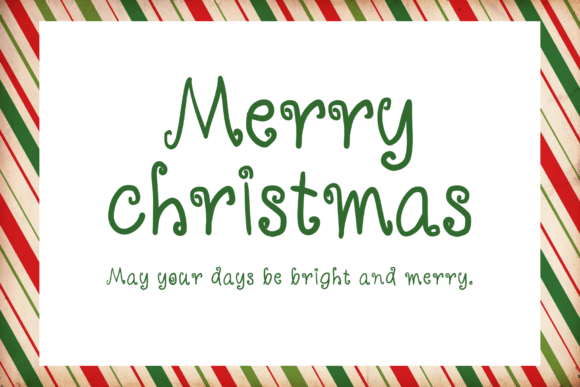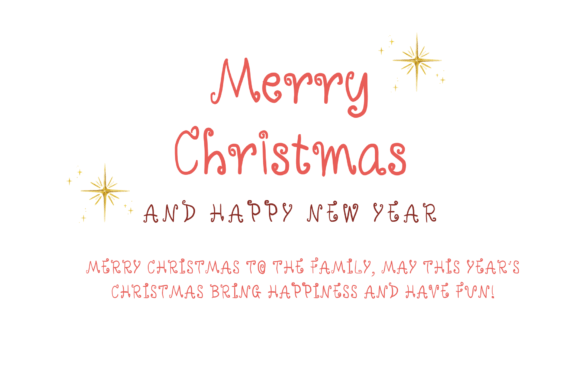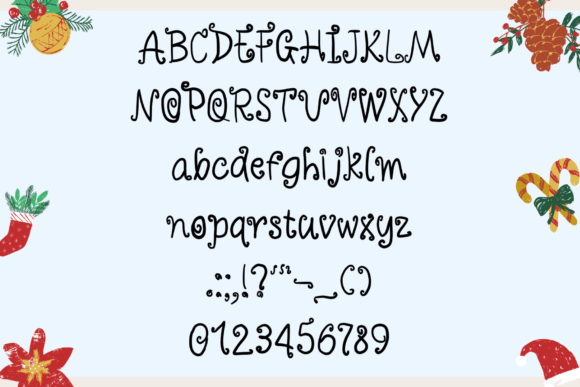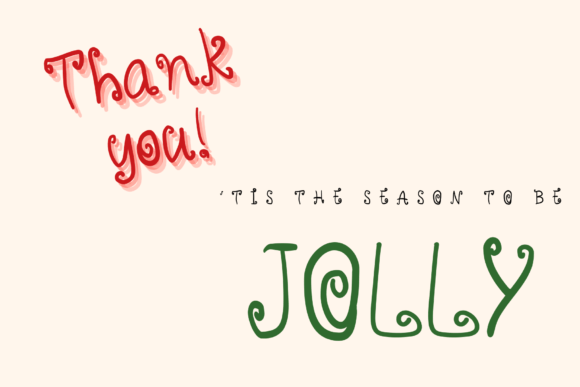
Christmas Kids Font: A Sweet and Friendly Handwritten Font for Your Creative Projects
Are you looking for a font that can add a touch of warmth and friendliness to your creative projects? Look no further than the Christmas Kids font! This sweet and friendly handwritten font is perfect for designers and crafters who want to create unique and engaging content for the holiday season.
What is Christmas Kids Font?
Christmas Kids is a handwritten font that is designed to evoke the spirit of the holiday season. With its playful and whimsical feel, this font is perfect for creating festive and fun designs that are sure to delight both kids and adults alike. Whether you’re working on a Christmas card, a holiday-themed craft project, or a festive website design, Christmas Kids font is the perfect choice.
Features of Christmas Kids Font
- Sweet and Friendly Design: Christmas Kids font has a sweet and friendly design that is perfect for creating festive and fun content.
- Handwritten Style: This font has a handwritten style that gives it a personal and unique touch.
- Playful and Whimsical: Christmas Kids font has a playful and whimsical feel that is sure to delight both kids and adults alike.
- Easy to Read: Despite its playful design, Christmas Kids font is easy to read, making it perfect for use in a variety of creative projects.
Uses for Christmas Kids Font
- Christmas Cards: Use Christmas Kids font to create festive and fun Christmas cards that are sure to delight your friends and family.
- Holiday Crafts: Add a personal touch to your holiday crafts, such as ornaments, gift tags, and decorations, with Christmas Kids font.
- Website Design: Use Christmas Kids font to create a festive and fun website design that’s perfect for the holiday season.
- Social Media Graphics: Create engaging social media graphics, such as holiday-themed Facebook posts and Instagram stories, with Christmas Kids font.
Why Choose Christmas Kids Font?
- Unique and Engaging: Christmas Kids font is a unique and engaging font that’s sure to add a touch of warmth and friendliness to your creative projects.
- Versatile: Christmas Kids font is versatile and can be used in a variety of creative projects, from Christmas cards to website design.
In conclusion, Christmas Kids font is a sweet and friendly handwritten font that’s perfect for designers and crafters who want to create unique and engaging content for the holiday season. With its playful and whimsical feel, easy-to-read design, and versatility, Christmas Kids font is the perfect choice for a variety of creative projects. So why wait? Download Christmas Kids font today and add it to your creative projects!